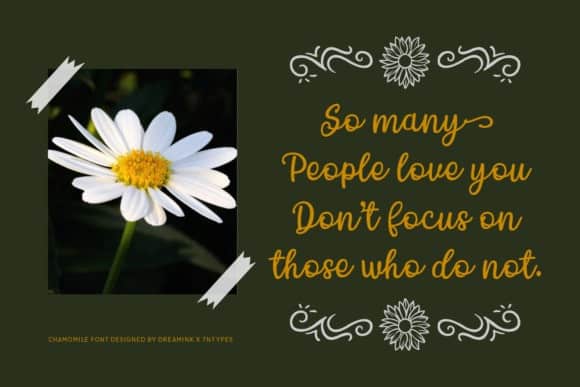
Chamomile Handwritten Font
Chamomile Handwritten Font is a very beautiful and unique classy font that comes with a very beautiful ligature surprise with different font characters so it is perfect for your design needs such as printed quotes, invitation cards, social media, product packaging, your website and more!
It’s a sweet, soft hand-lettered handwritten font. This font is PUA encoded which means you can access all of the beautiful glyphs and swashes with ease!